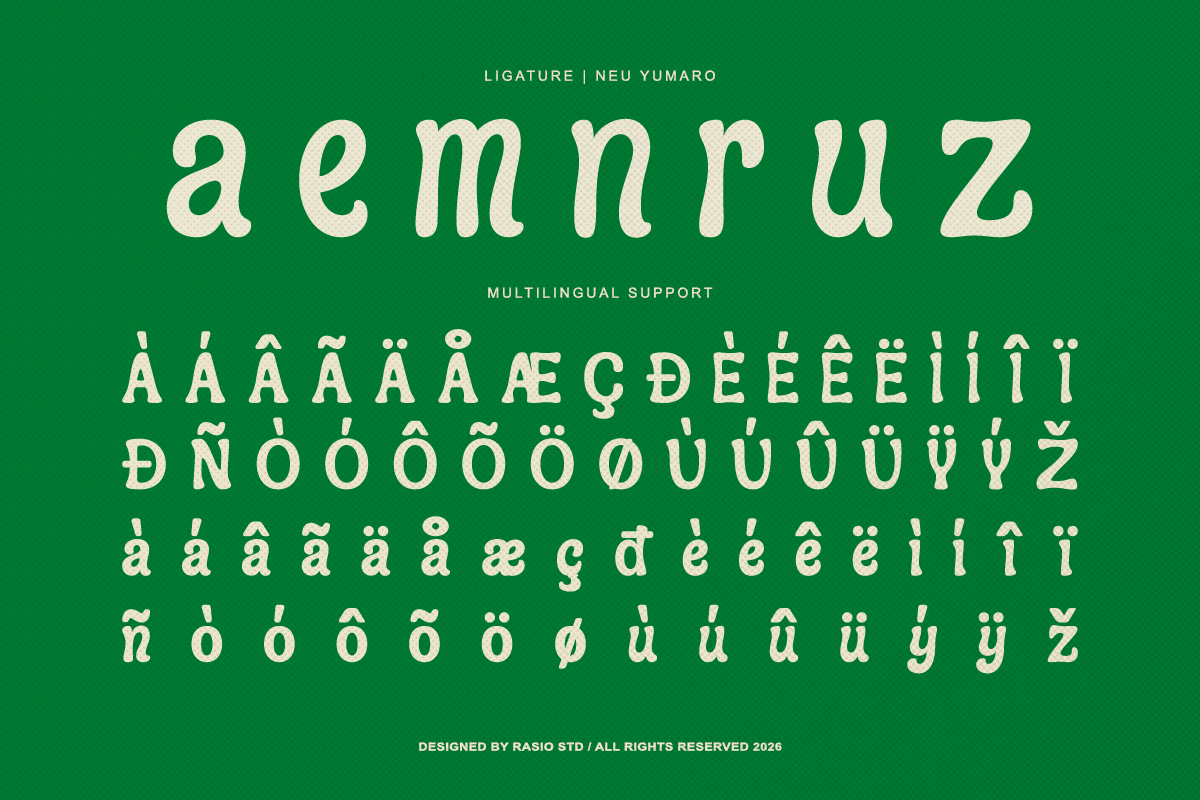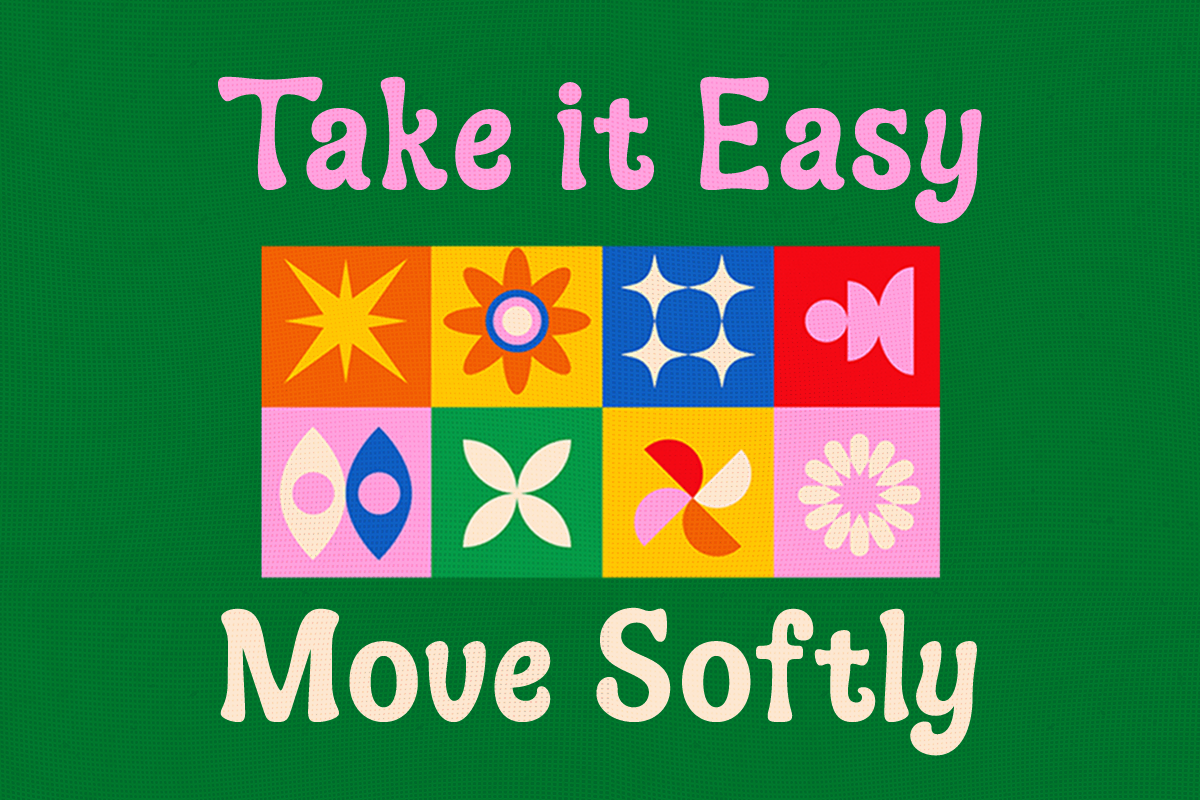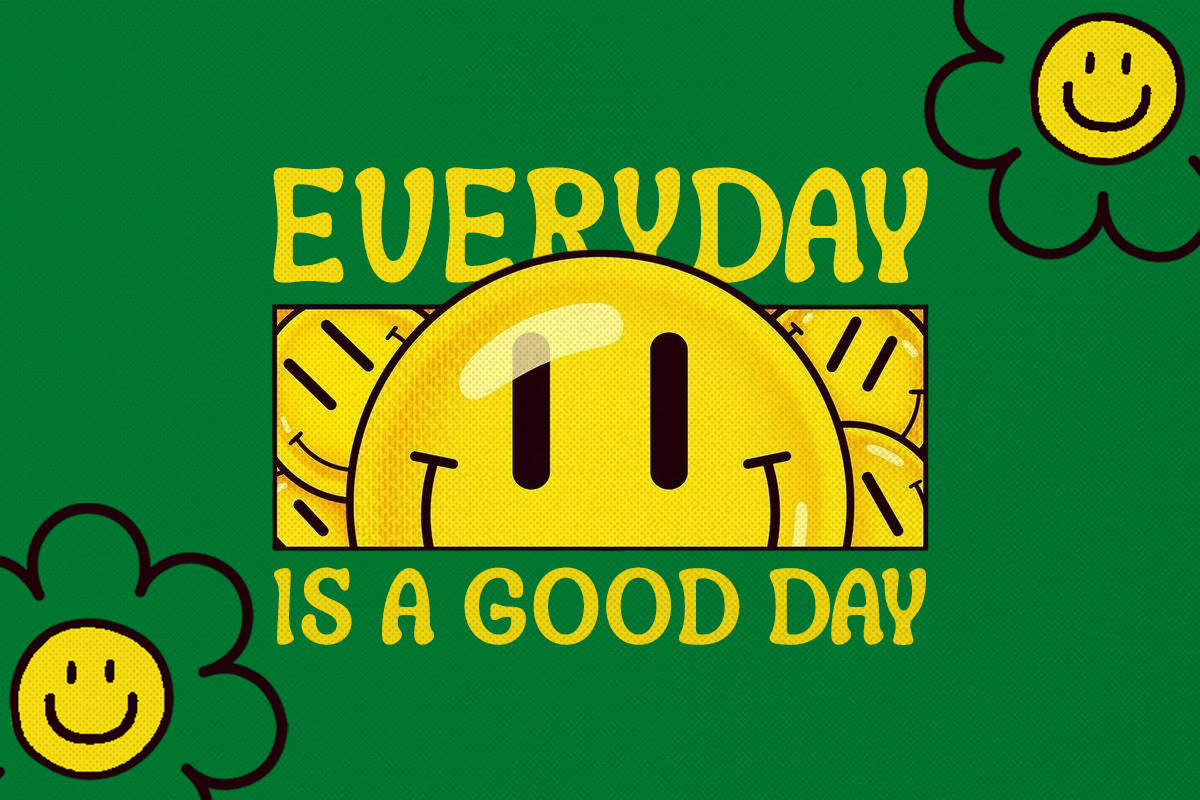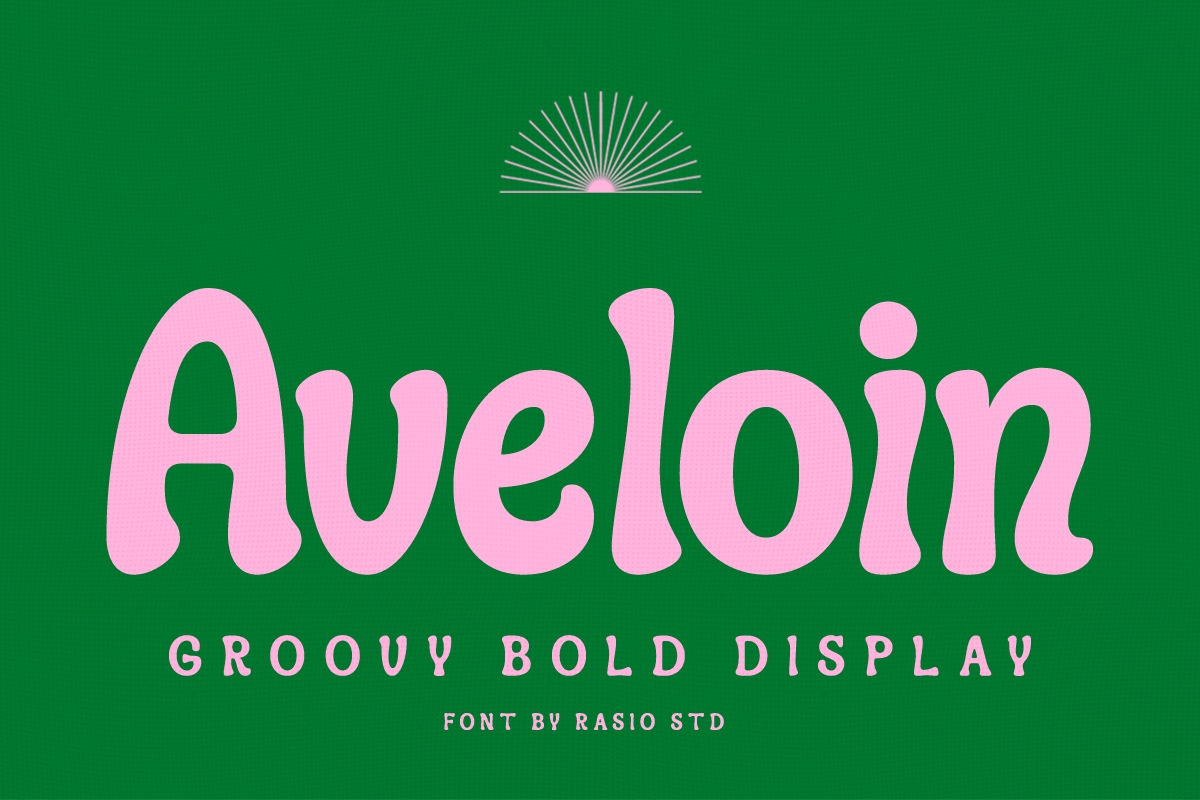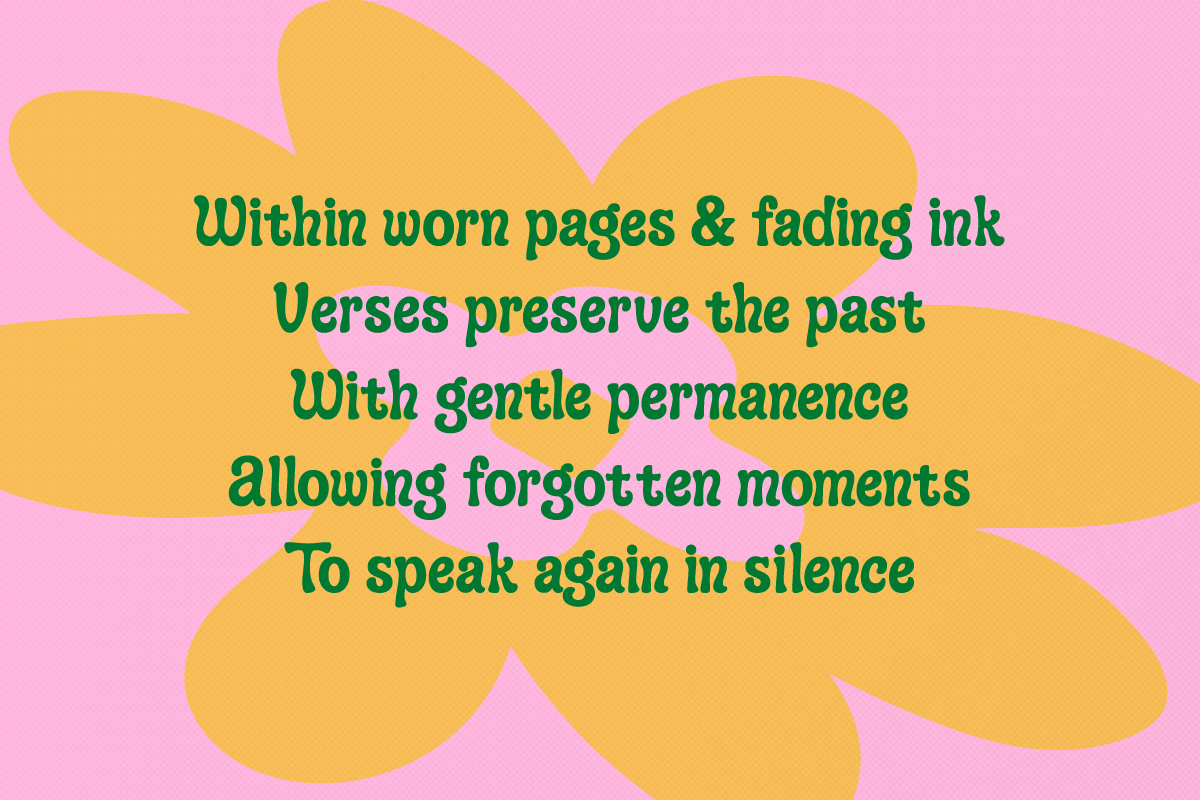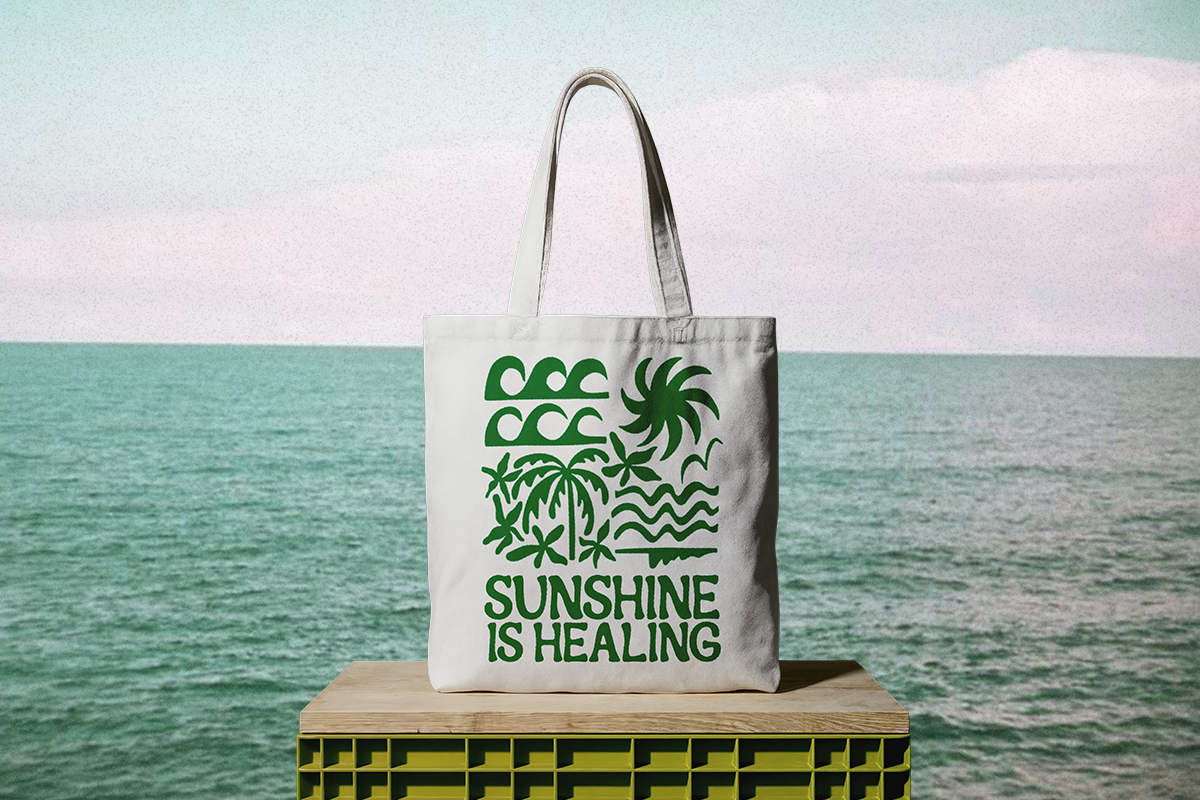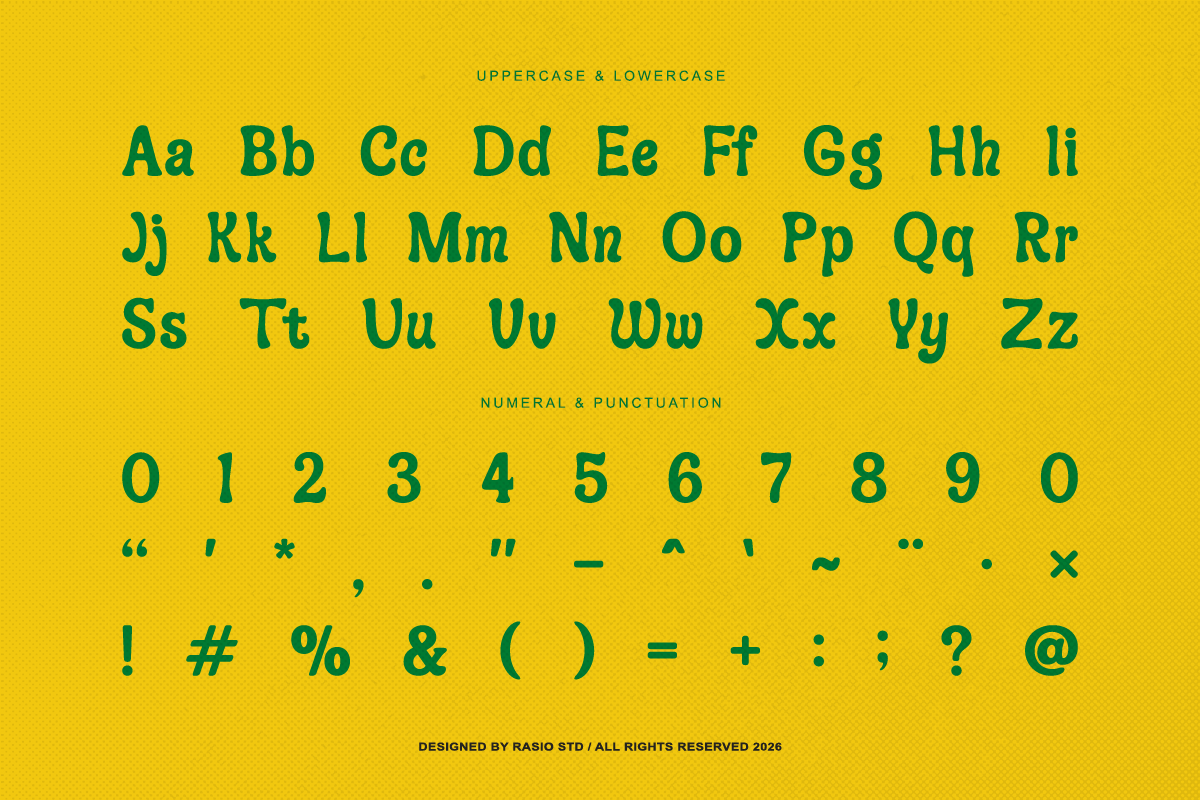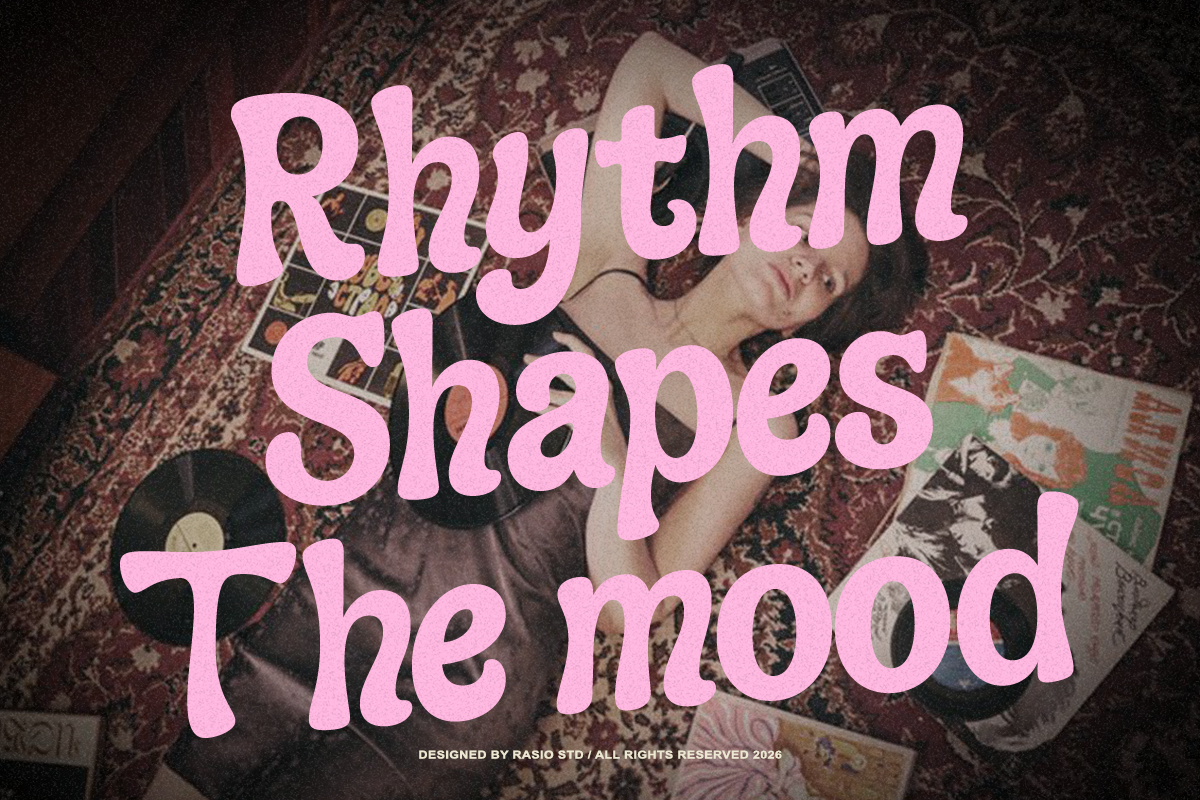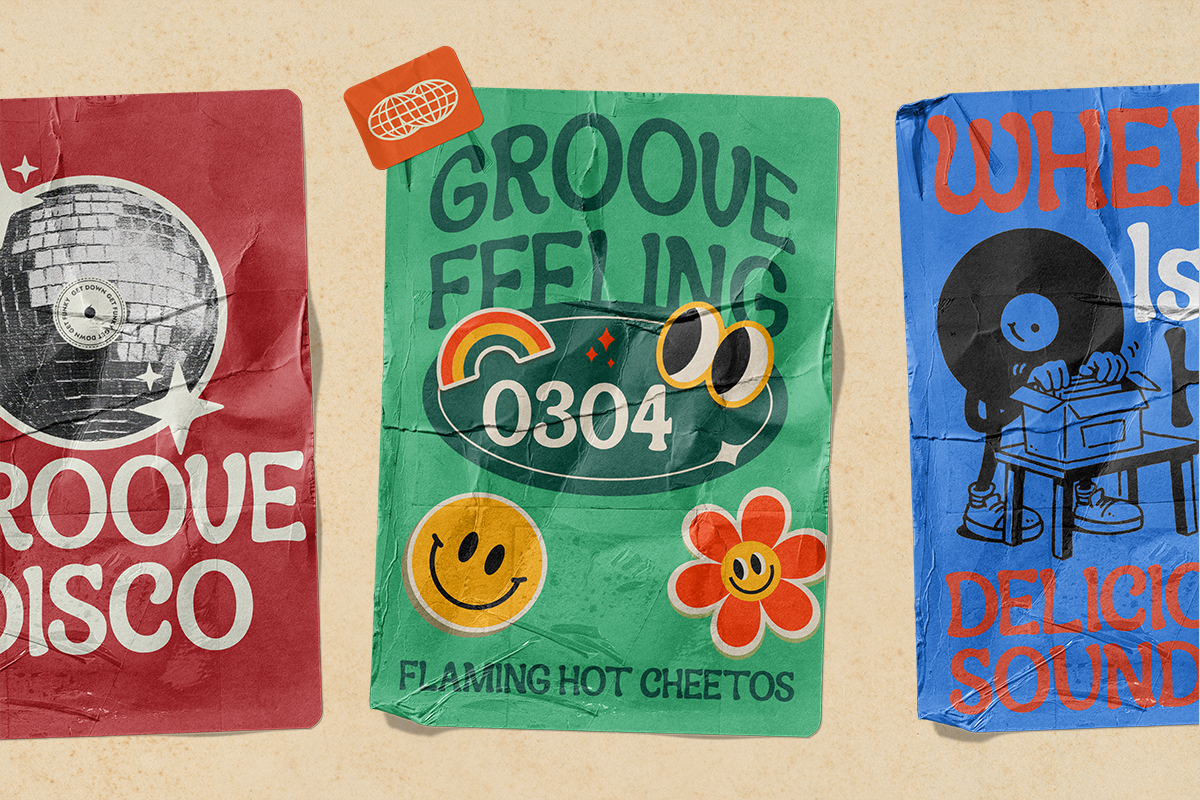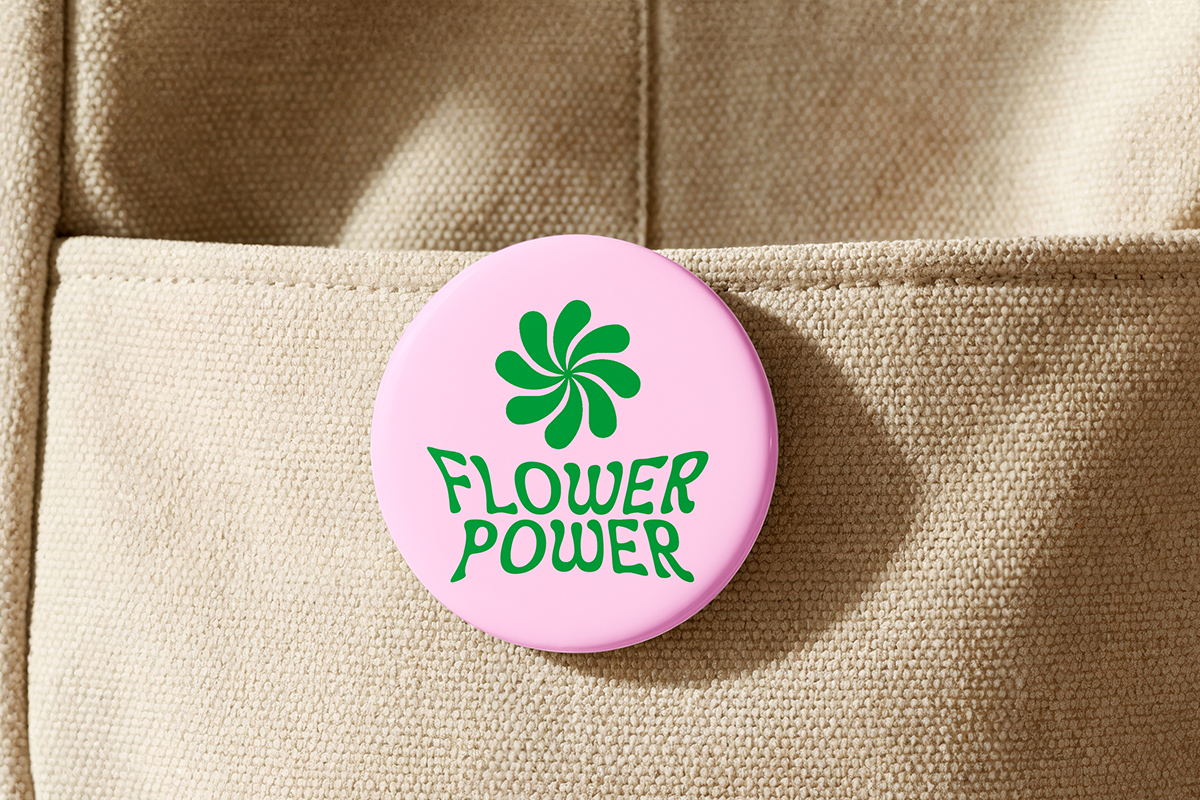
Aveloin Groovy Bold Display Font
Aveloin is a groovy bold display font inspired by retro 70s typography and psychedelic design aesthetics. The letterforms feature soft curves, playful shapes, and chunky strokes that create a strong visual personality while maintaining a fun and expressive rhythm. Its nostalgic style captures the spirit of vintage posters, vinyl culture, and retro branding.
Aveloin is designed for creative projects that embrace retro energy and expressive typography. The bold groovy shapes make it perfect for vintage posters, music branding, album artwork, and retro themed advertising. It also works beautifully for logo design, fashion branding, packaging, and social media graphics that require a nostalgic yet playful visual identity.
- Groovy retro display design inspired by 70s psychedelic typography
- Soft rounded letterforms creating a playful and expressive character
- Bold chunky strokes for strong visual impact in headlines
- Curvy organic shapes that enhance the vintage aesthetic
- Balanced spacing to maintain readability in large display settings
- Retro brand identity and logo design with groovy vintage character
- Music posters, album covers, and festival promotional graphics
- Editorial headlines and magazine layouts with bold retro style
- Product packaging and labels inspired by vintage aesthetics
- Social media graphics and marketing visuals with playful retro typography